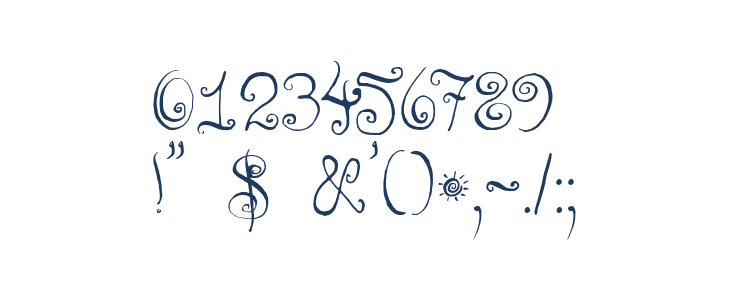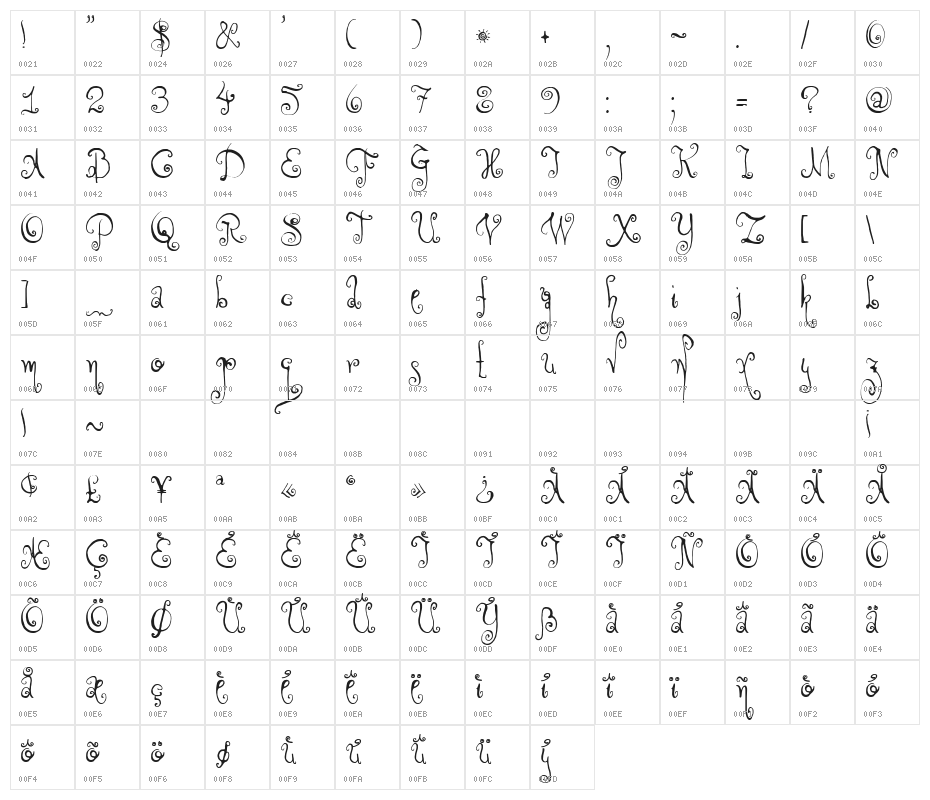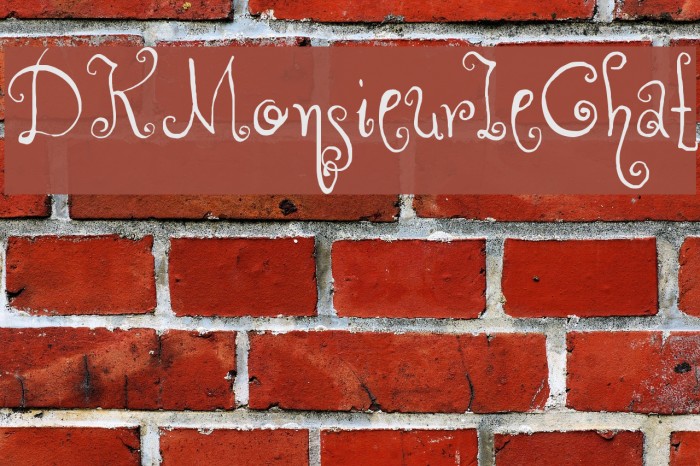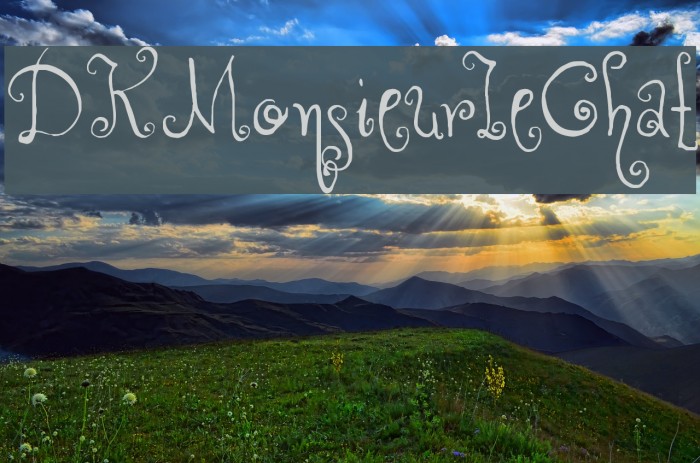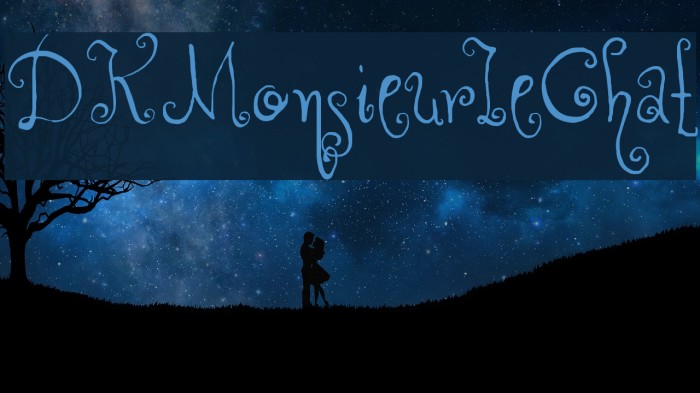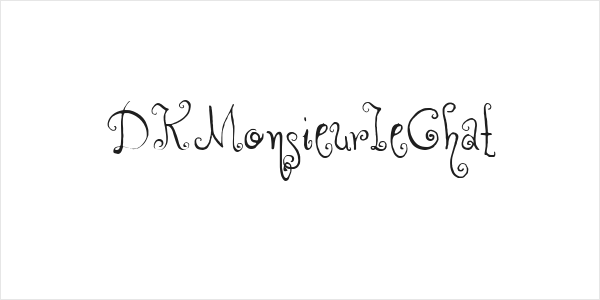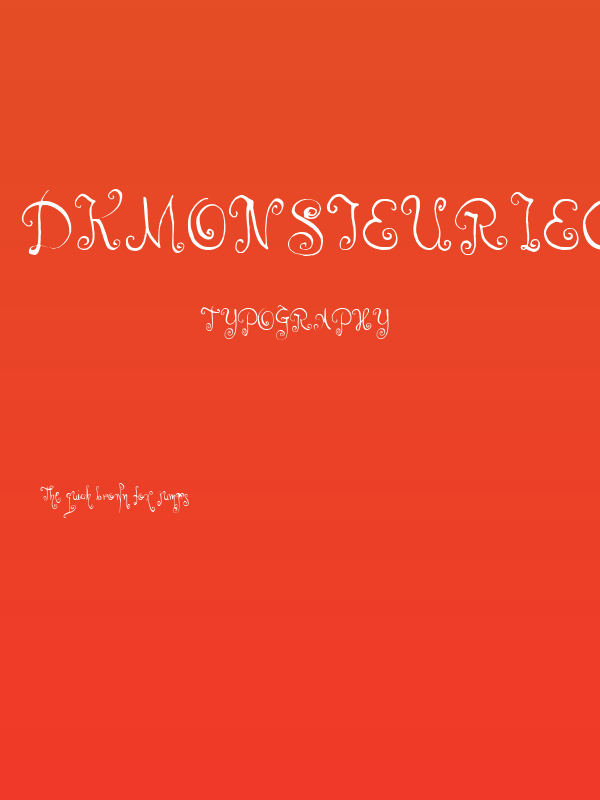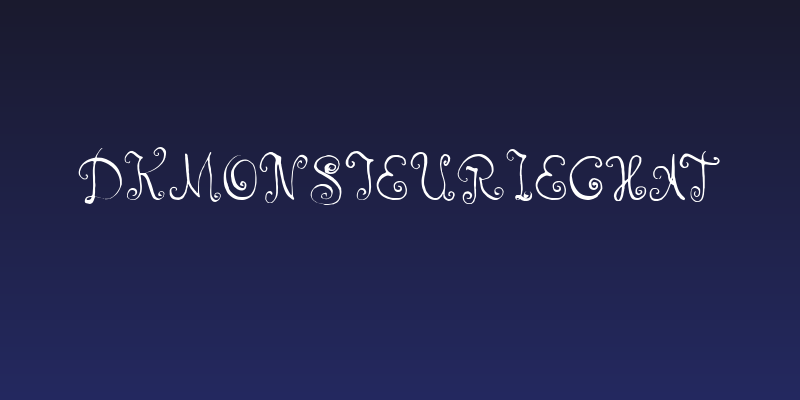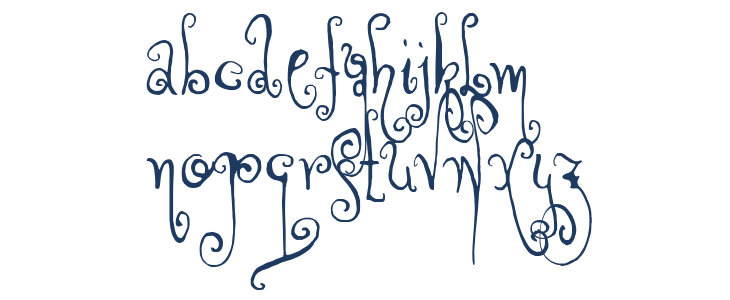
DKMonsieurLeChat Font
DKMonsieurLeChat Description
This whimsical and playful font features a unique blend of curls and swirls, giving it a distinctly artistic and decorative appearance. The uppercase letters are characterized by elaborate loops and flourishes, while the lowercase letters maintain a more whimsical, yet cohesive style. Numbers and special characters follow the same decorative theme, adding a touch of fun and creativity to any text. The font's intricate design makes it ideal for projects that require a touch of elegance and flair, such as invitations, greeting cards, or artistic posters. Its distinctive style ensures that it stands out, making it perfect for creative and expressive design projects.
| Use Case | Headlines, Artistic projects, Invitations |
| Proposed Projects | Ideal for invitations, greeting cards, artistic posters, and creative design projects. |